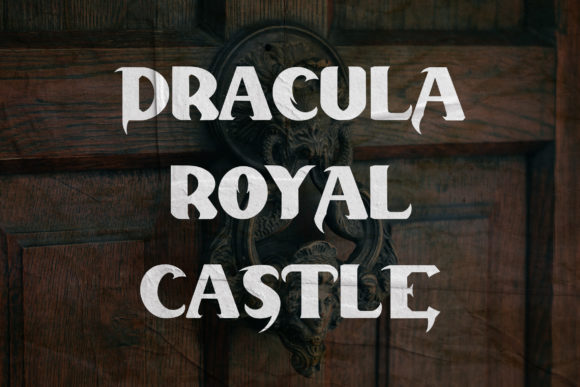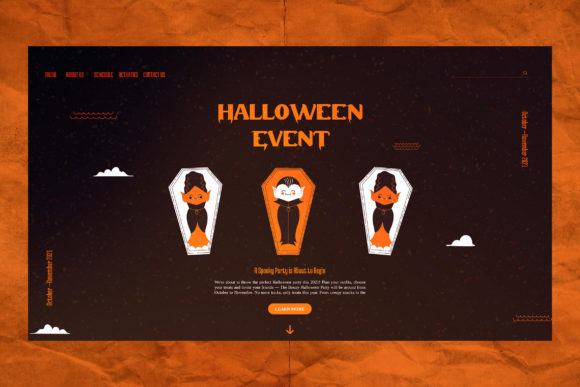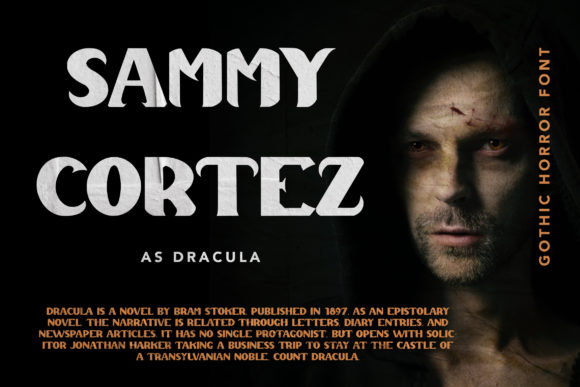
Introduction to Dracula Palace Font
Have you ever found yourself stuck in the middle of a creative project, desperately searching for that one perfect font to bring your vision to life? That’s exactly where I was when I stumbled upon the Dracula Palace Font – a game-changing, high-quality display font that added an instant touch of elegance and sophistication to my design.
With its bold, thick letters and PUA encoding, the Dracula Palace Font is a design resource that allows you to access all of its glyphs and swashes with ease, making it the perfect addition to any creative project. Whether you’re working on a graphic design, a logo, or even a social media post, this font is sure to make your design stand out with its unique style and versatility.
Key Features of Dracula Palace Font
- Unique Gothic-inspired design perfect for creative projects, especially those with a dark or mysterious theme.
- High-quality font with a transparent background, allowing for seamless integration into various design elements.
- Includes a comprehensive character set, featuring uppercase and lowercase letters, numbers, and special characters.
Honest Review: Dracula Palace Font
I recently had the chance to dive into the world of typography with the Dracula Palace Font, and I must say it’s a game-changer for any creative project that needs a touch of elegance and sophistication. ✨
What I love about this font is its unique, Gothic-inspired design that immediately sets the tone for a mysterious and intriguing atmosphere. The transparent background option allows for seamless integration with any background image or color, giving you total creative control.
Here are some of the key features I love about this font:
- Unique, Gothic-inspired design
- High-quality design resource
While the Dracula Palace Font is an excellent addition to any designer’s toolkit, there are a few limitations to be aware of:
- Limited character set (may not be suitable for extended text)
- No bold or italic variants (can be a limitation for emphasis)
Overall, I’m thoroughly impressed with the Dracula Palace Font and would highly recommend it to anyone looking to add a touch of sophistication to their creative project. ⚠️ Just be aware of the limitations mentioned above, and you’ll be all set for a hauntingly beautiful design experience! ✨
The Dracula Palace Font is a high-quality design resource that can be used in a variety of creative projects. It features a unique and elegant style, making it perfect for adding a touch of sophistication to your designs.
To get the most out of the Dracula Palace Font, try using it with a transparent background to create a striking visual effect. You can also experiment with different font sizes and styles to create a unique look.
The Dracula Palace Font is perfect for use in creative projects such as invitations, posters, and social media graphics. It’s also great for use in presentations and documents where you want to add a touch of elegance and sophistication.